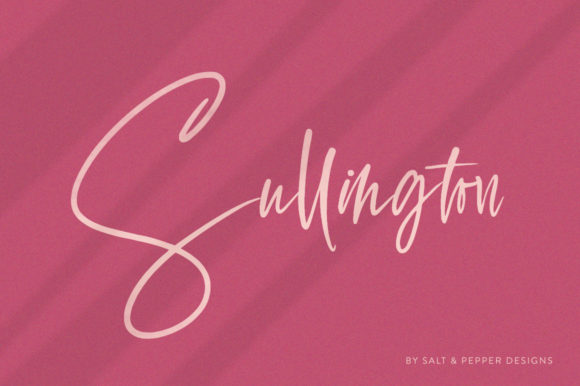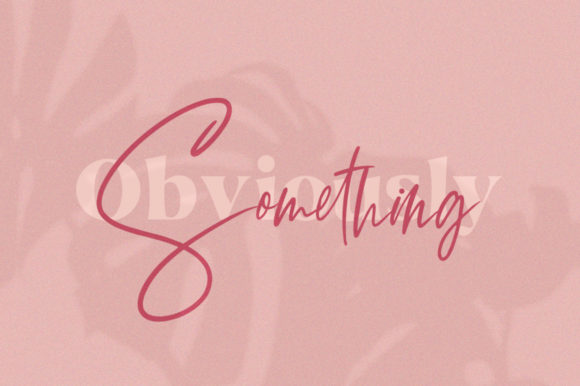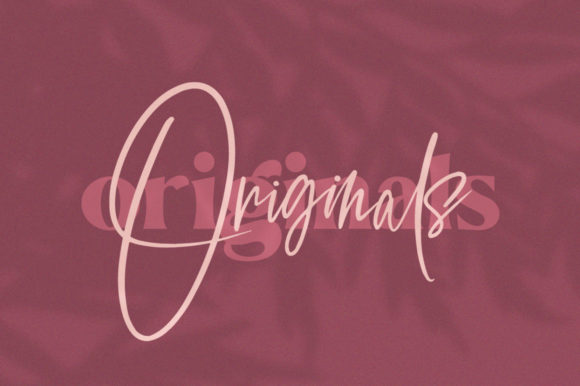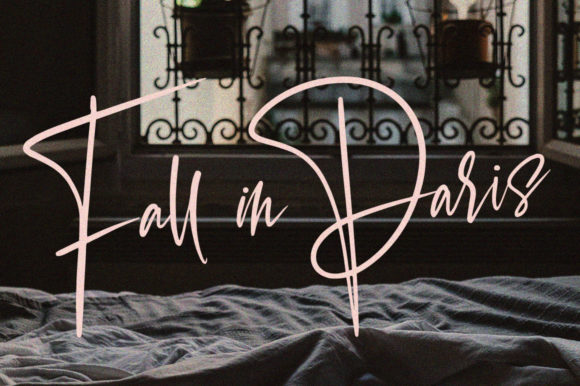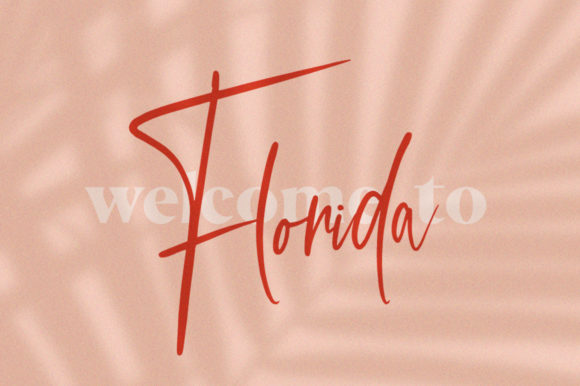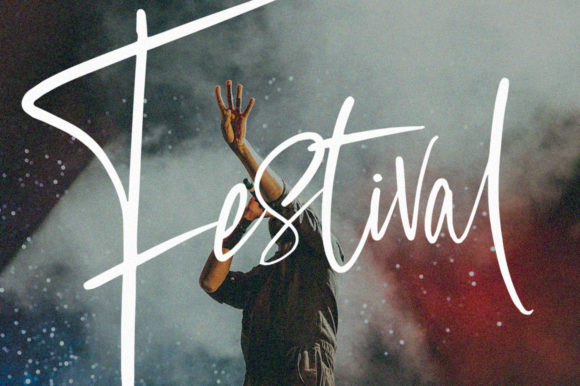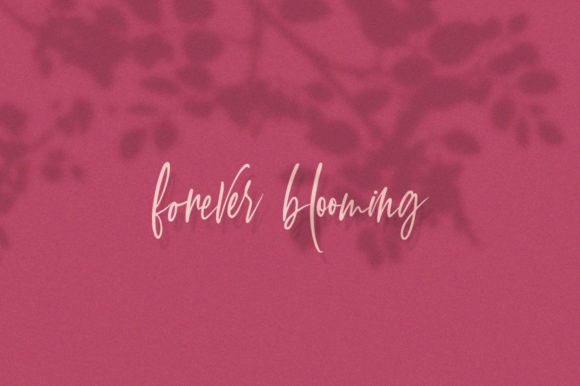
Sullington Font
About Sullington Font
Sullington Script is a gorgeous new script font that includes a wonderful array of characters and some seriously stylish ligatures! Make sure you grab this beauty now and use it in your new work and don’t forget that this stunner pairs well with serifs too!